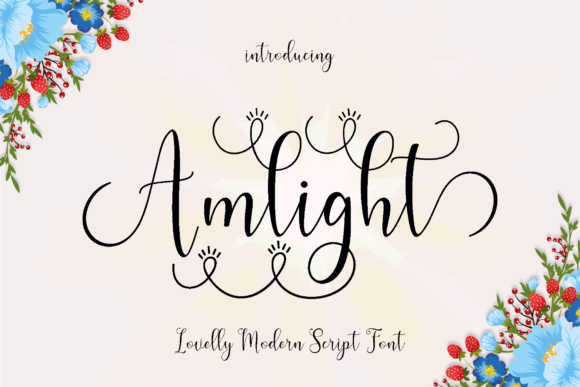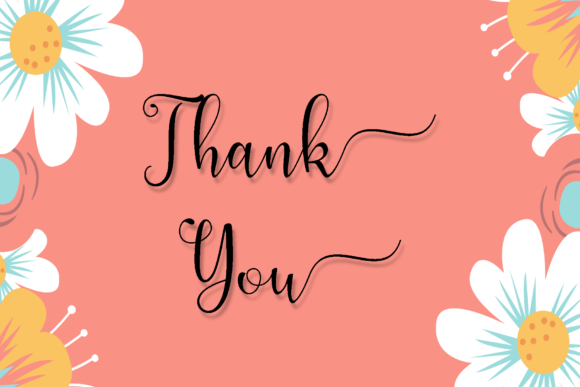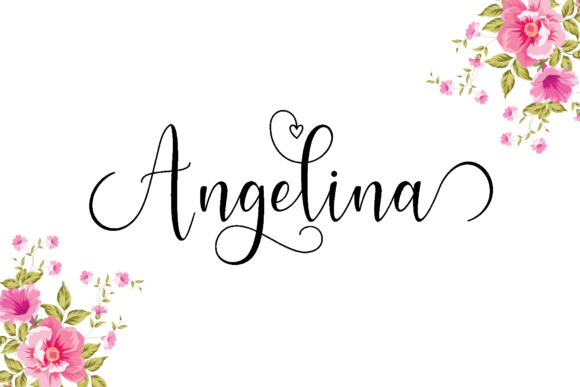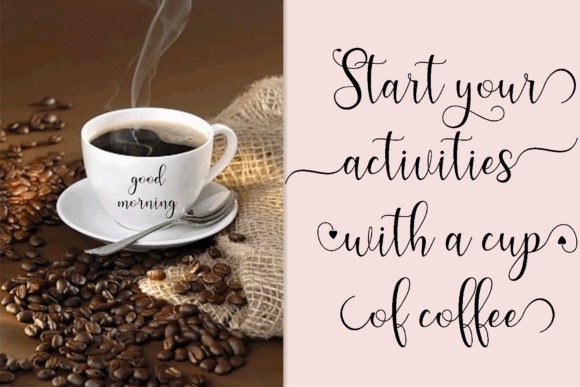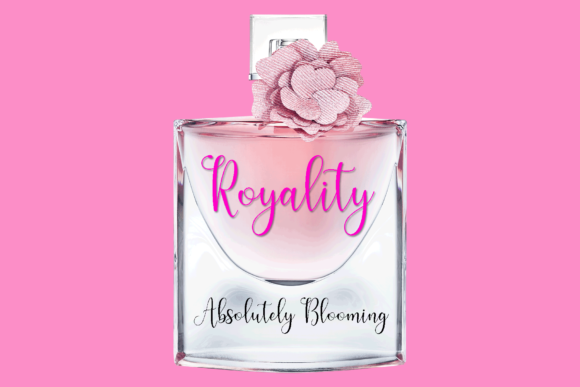
Amlight Font
About Amlight Font
Amlight is a magical handwritten font carefully created with a touch of elegance. This is a beautiful combination of timeless elegance and authentic calligraphy. It features a varying baseline, smooth lines, gorgeous glyphs and stunning alternates. It will elevate a wide range of design projects to the highest level, be it branding, headings, wedding designs, invitations, signatures, logos, labels, and much more!